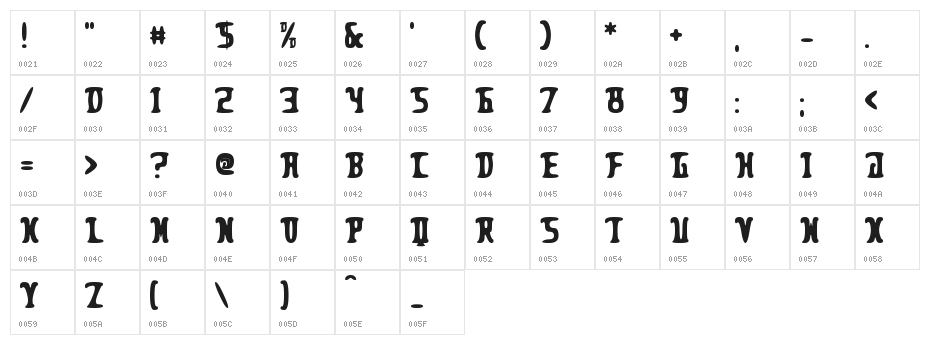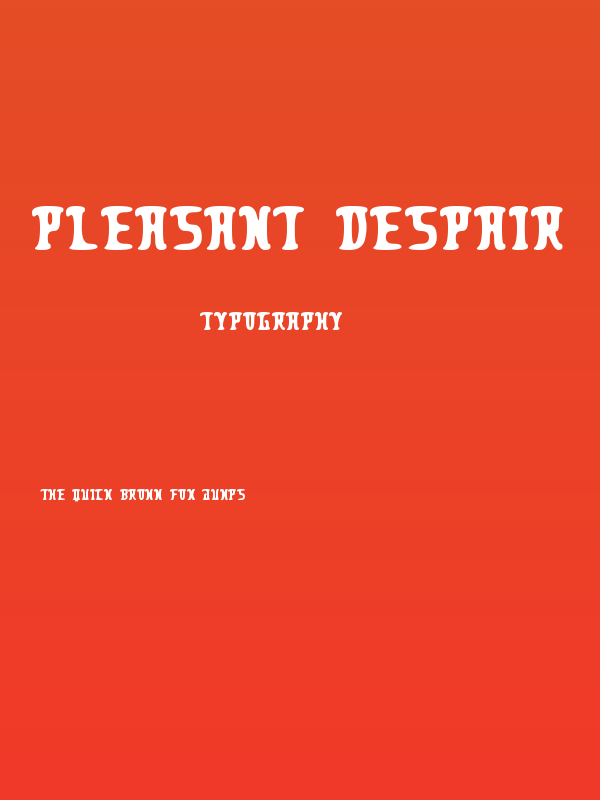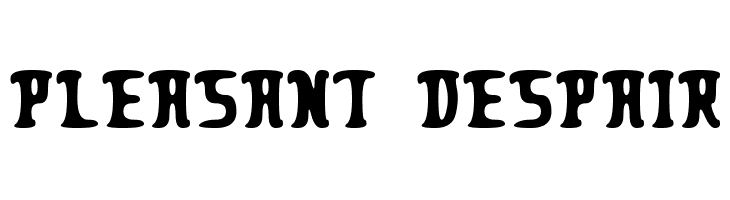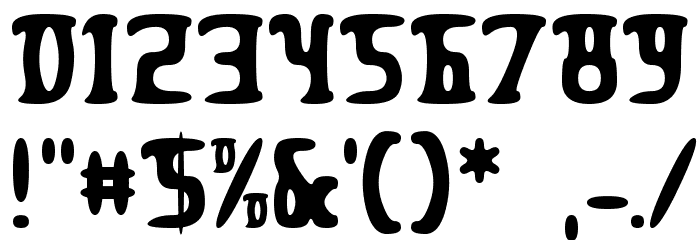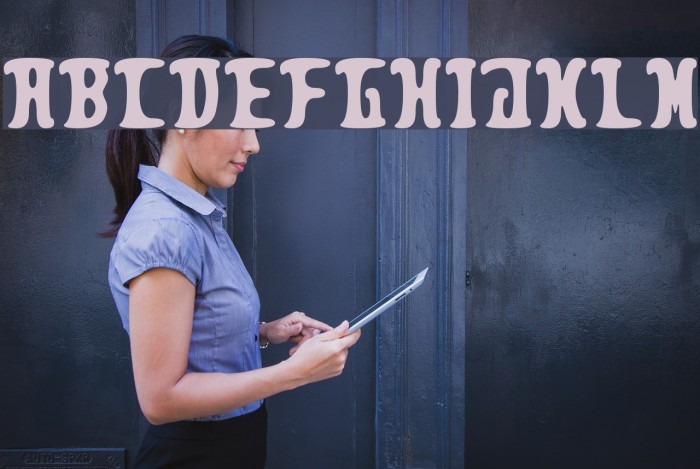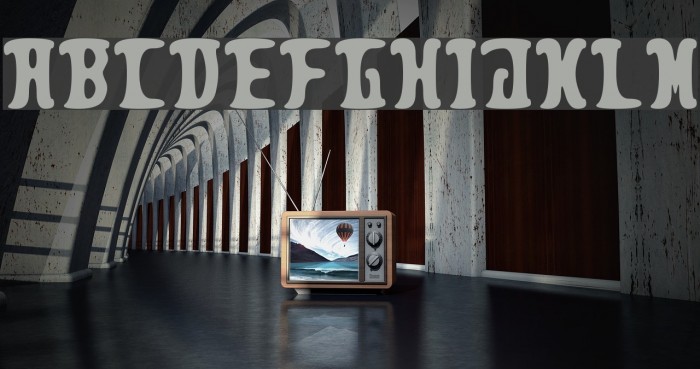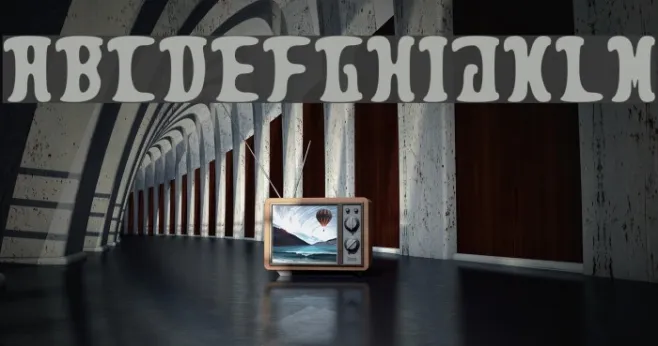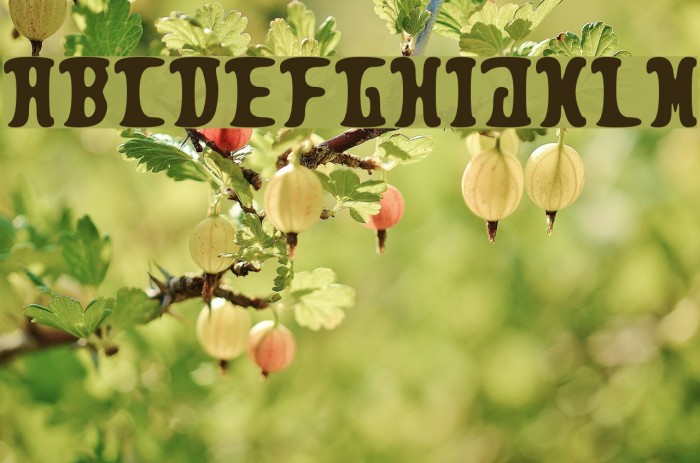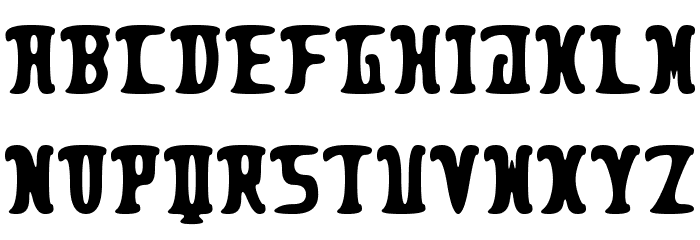
Pleasant Despair Font
Pleasant Despair Description
This font features a bold and playful design with a distinct retro vibe. The characters are thick and rounded, giving them a strong presence on the page. The strokes are consistent in width, creating a uniform appearance across all letters and numbers. The style is reminiscent of vintage signage or posters, with a touch of whimsy in the curves and angles. The special characters maintain the same boldness and playful style, ensuring consistency throughout the font. Its unique design makes it stand out, making it ideal for projects that require a bold statement.